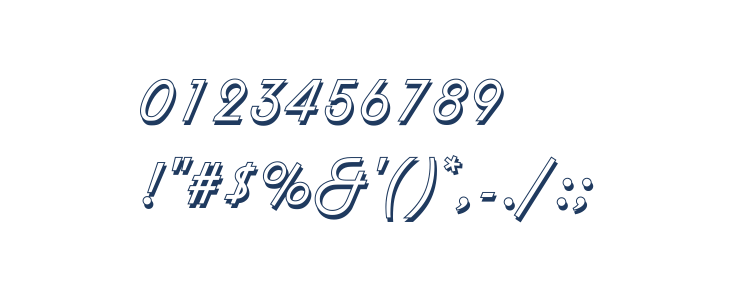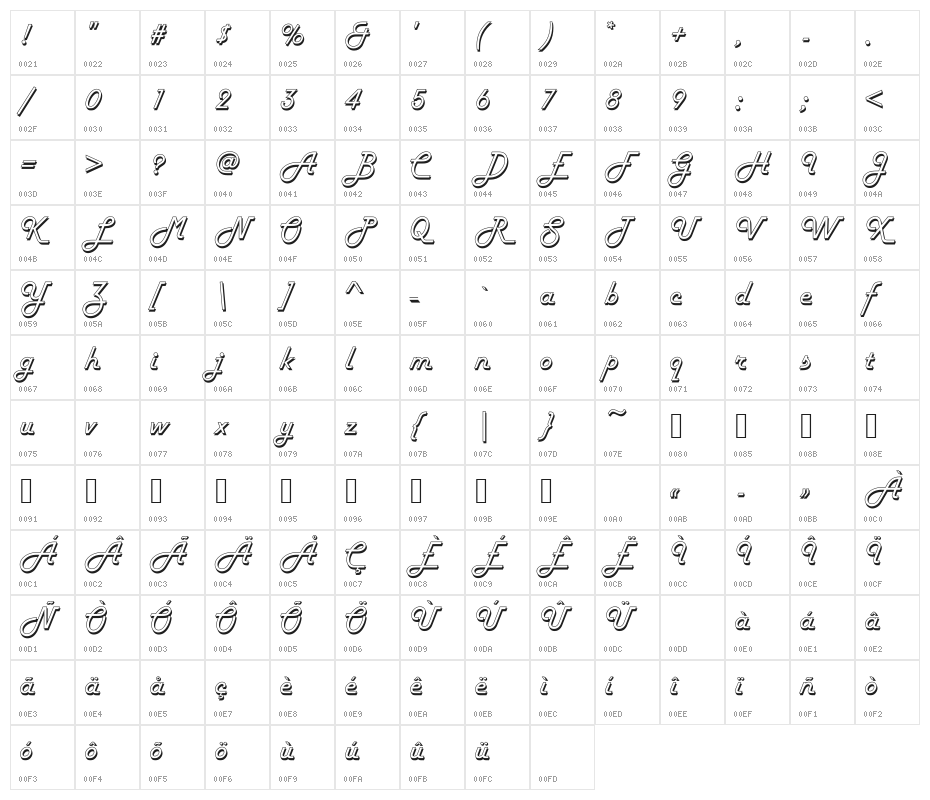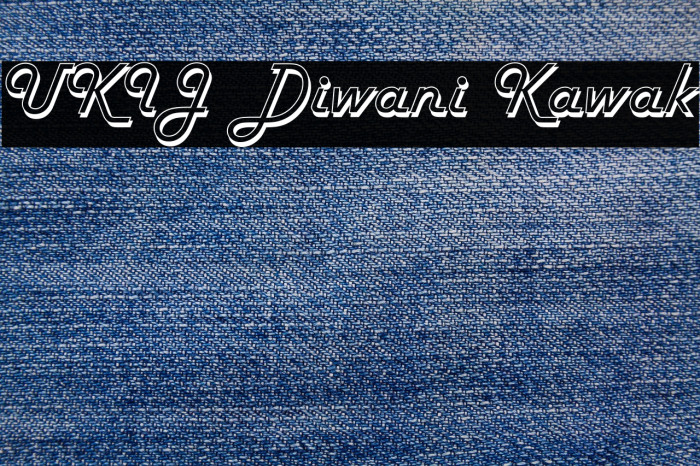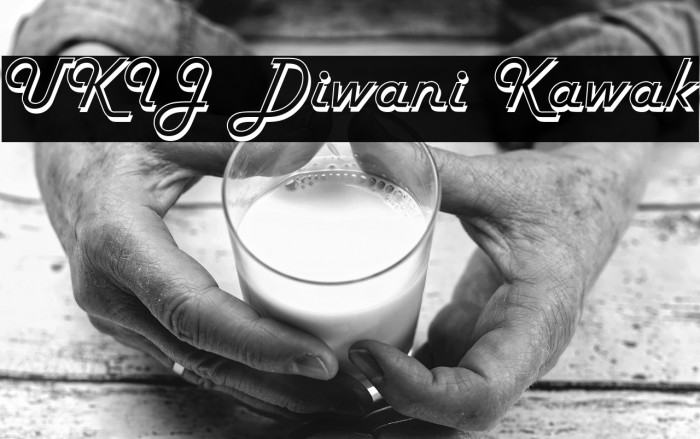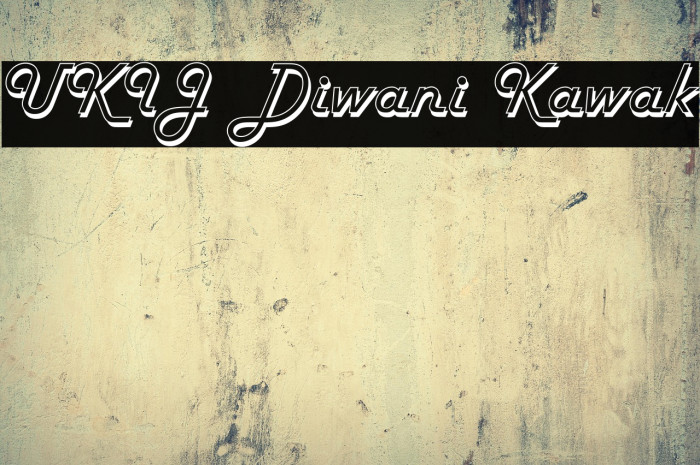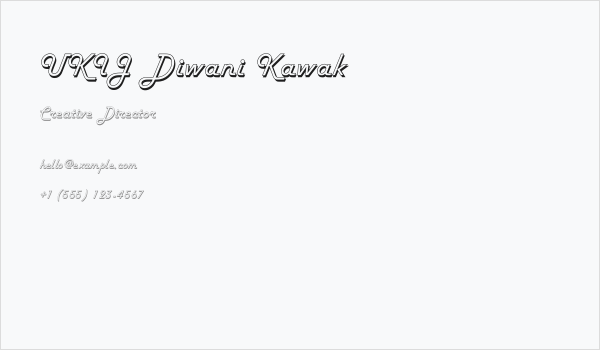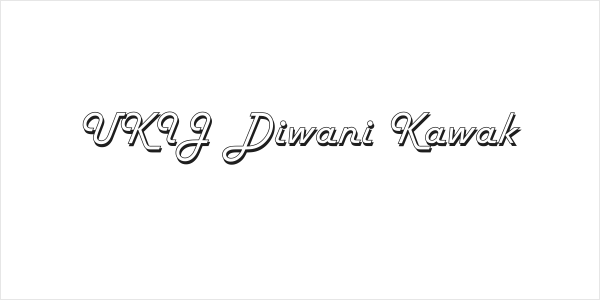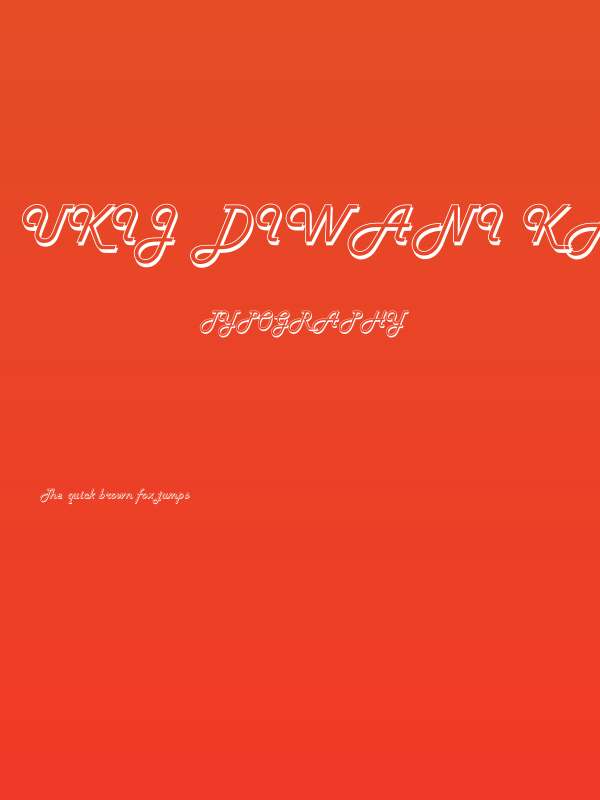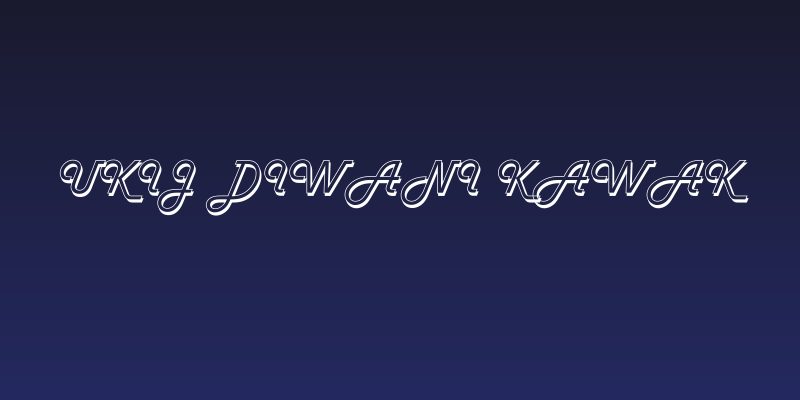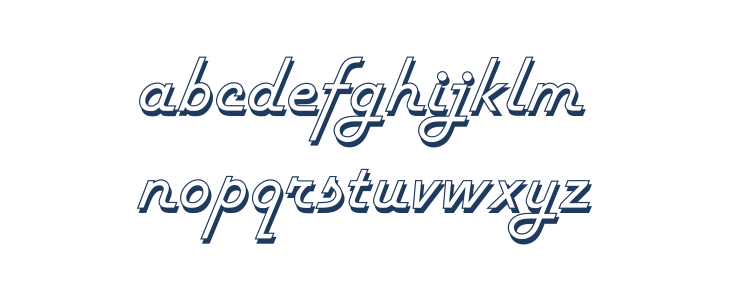
UKIJ Diwani Kawak Font
UKIJ Diwani Kawak Description
This font features an elegant and flowing script style with a distinct shadow effect that gives it a three-dimensional appearance. The uppercase letters are characterized by smooth, connected strokes that create a sense of movement and fluidity. The lowercase letters maintain this cursive style, ensuring a consistent and harmonious look throughout. The numerals and special characters are crafted with the same attention to detail, making them suitable for a variety of design applications. The font's unique shadowing adds depth and visual interest, making it stand out in any project.
| Proposed Projects | Ideal for wedding invitations, greeting cards, branding, and decorative posters. |